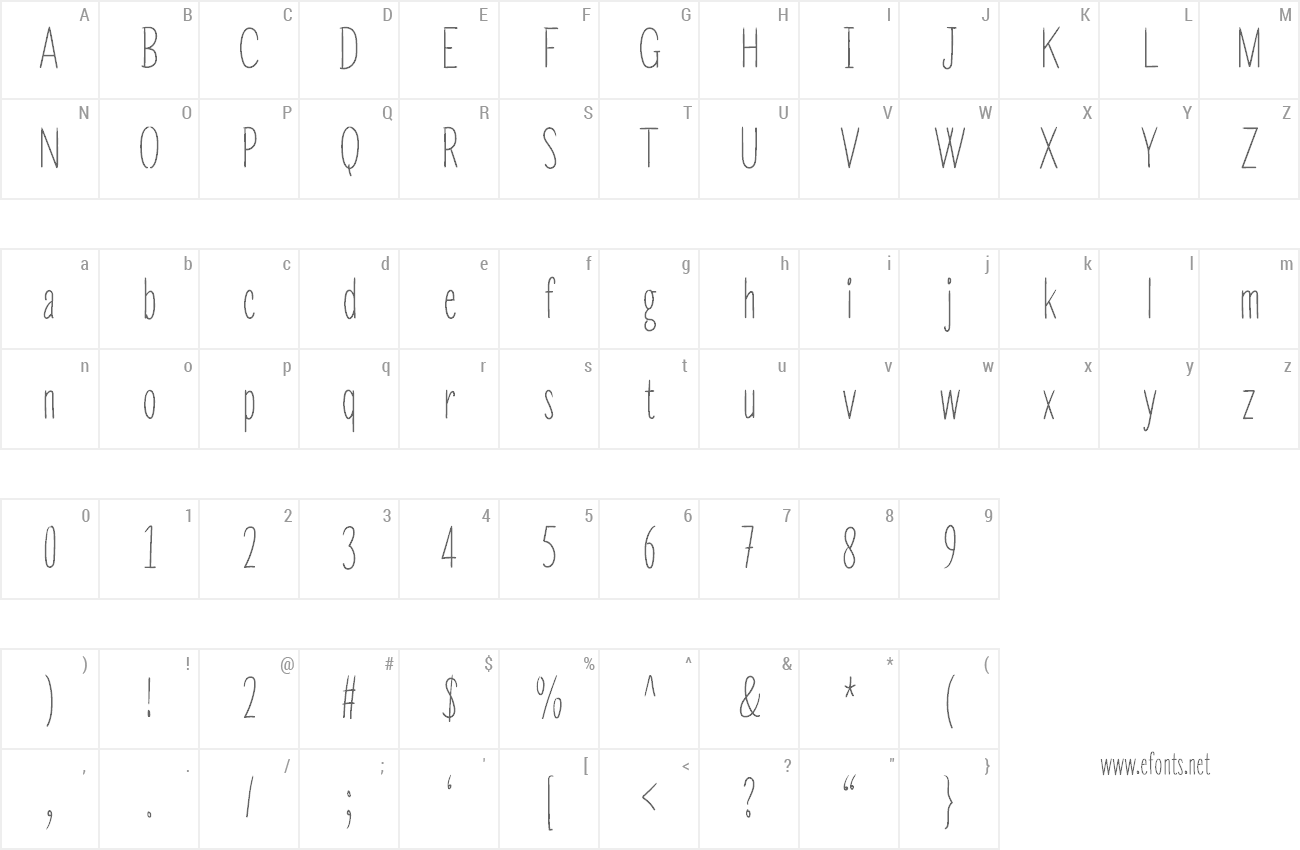
Preview and download Sunrise Minimalist Font. Created by Andika in Script Handwritten styles with Free for personal use license.
| Font name: | Sunrise Minimalist |
| Author: | Andika |
| Note by Andika | |